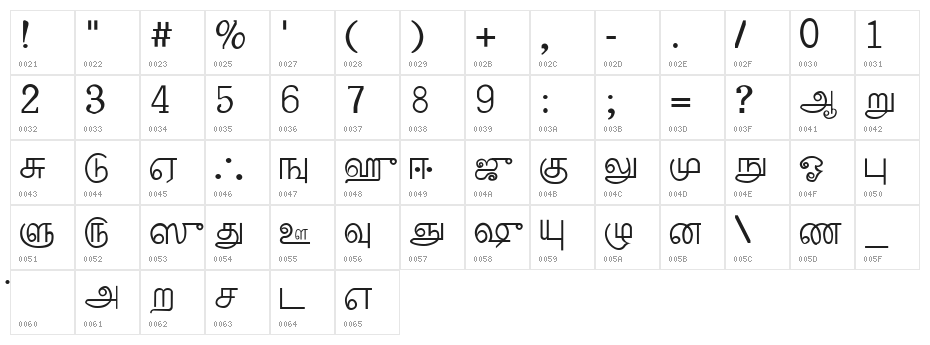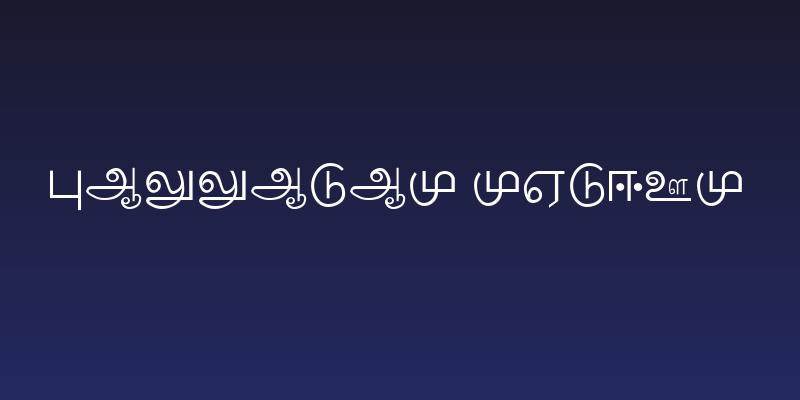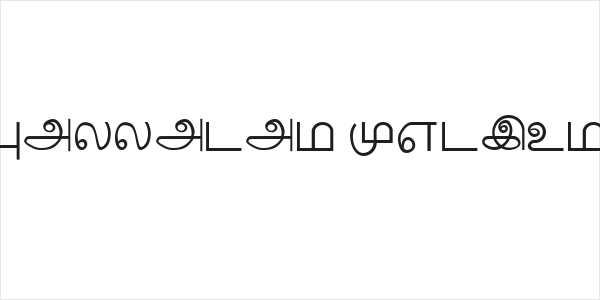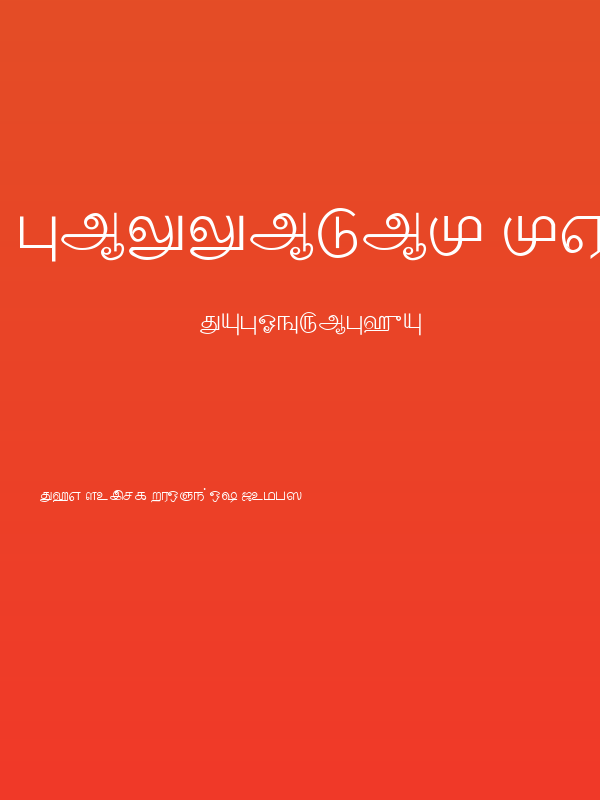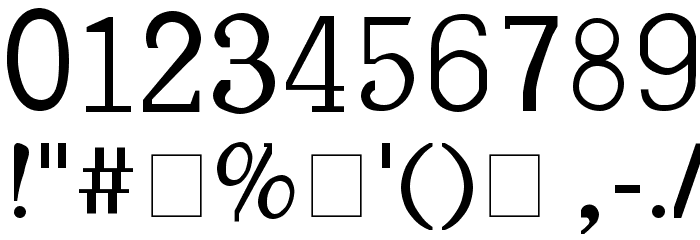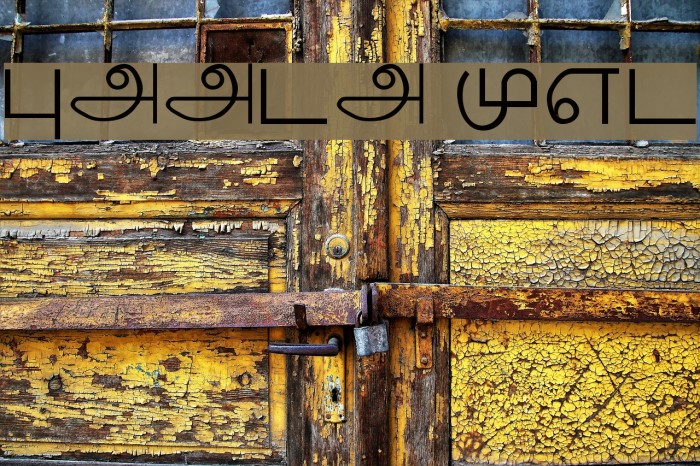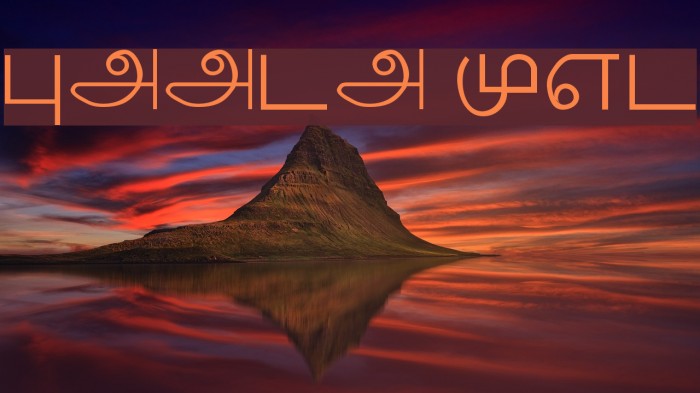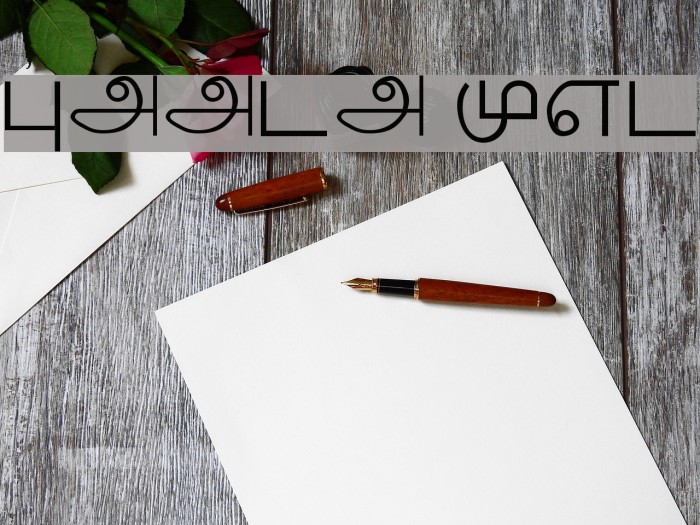
Palladam Medium Font
Palladam Medium Description
This font exhibits a clean and modern design with a focus on readability and simplicity. The characters are well-defined with a consistent stroke width, providing a balanced appearance. The numerals are clear and distinct, making them easily legible. The special characters are designed to complement the overall style, maintaining uniformity across the font. The spacing between characters is normal, ensuring that the text is easy to read without appearing crowded or sparse. This font is versatile, suitable for both digital and print media, and can be used effectively in various design contexts.